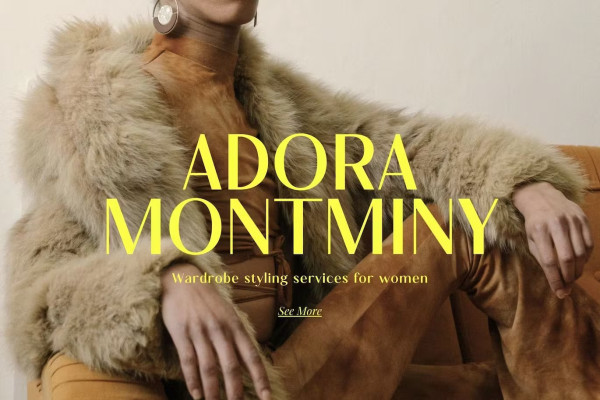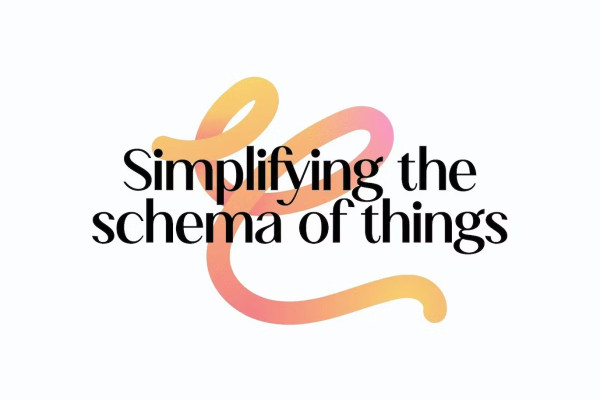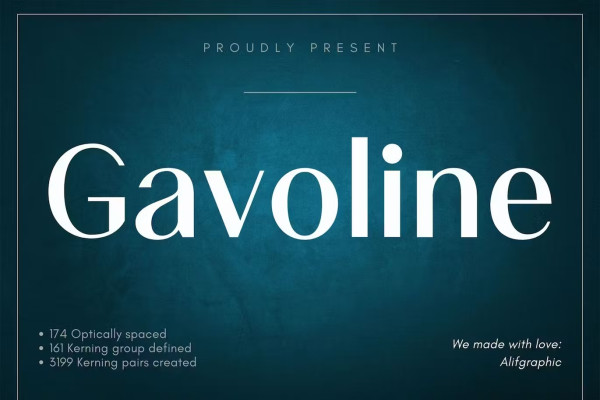
Gavoline Font
Gavoline Font, a beautiful series of letters are encapsulated in this “Gavoline” font. Neat lettering is perfect for modern, eye-pleasing writing needs. It gives a modern feel while remaining stylish when used for writing. Cleanliness in the making of every letter is our top priority. You can have fun and be creative using this font product we have created because the results will definitely be very satisfying.